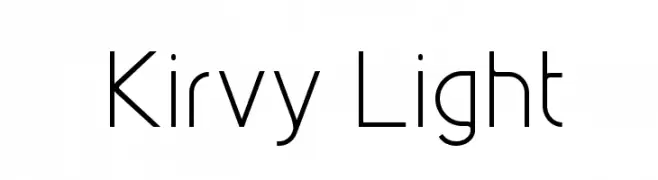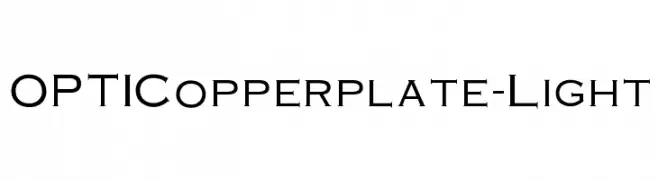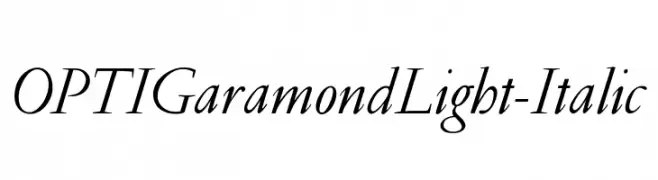
A modern, condensed, semi-light italic font with sleek and dynamic styling.
A modern, ultra-light, compressed italic font with a sleek and minimalistic design.
A modern, condensed, light italic font with a sleek and professional appearance.
A sleek, narrow, ultra-light italic font with a modern design.
A graceful, light, and italicized font with elegant curves and a sophisticated style.
A modern, extra light sans-serif font with clean lines and balanced spacing.
A modern, light sans-serif font with clean lines and excellent readability.
A light, elegant italic font with a modern and fluid design.
A sleek, ultra-light font with geometric precision and modern elegance.
A modern, light, and extended sans-serif font with a clean and geometric style.
A modern, light sans-serif font with clean lines and balanced spacing.
A modern, condensed, extra light italic typeface with a sleek and elegant design.
A sleek, extra light sans-serif font with an italic style, offering modern elegance.
A clean, modern sans-serif font with a light weight and geometric precision.
A modern, light, semi-condensed sans-serif font with medium contrast and normal spacing.
A modern, extra light, condensed sans-serif font with excellent readability.
A modern, condensed sans-serif font with a light weight and minimal stroke contrast.
A sleek, extra light, italic, and extra condensed font with a modern and minimalist design.
A modern, extra light, extra condensed sans-serif font with a clean and streamlined appearance.
A sleek, modern, semi-condensed, extra light italic font with balanced spacing.
A modern, extra condensed sans-serif font with a light and airy appearance.
A modern, extra light sans-serif font with a semi-condensed width.
A modern, semi-condensed sans-serif font with a light, italic style.
A modern, light, italic sans-serif font with clean lines and excellent legibility.
A sleek, modern, condensed italic typeface with light strokes and tight spacing.
A sleek, extra-condensed, light, and italic sans-serif font with a modern style.
A clean, modern sans-serif font with a light weight and excellent legibility.
A playful, handwritten font with light, airy strokes and a casual style.
A light, italic serif font with medium contrast and elegant style.
A playful, elegant italic font with light strokes and subtle curves.
A playful, modern font with rounded, smooth characters and a light, airy feel.